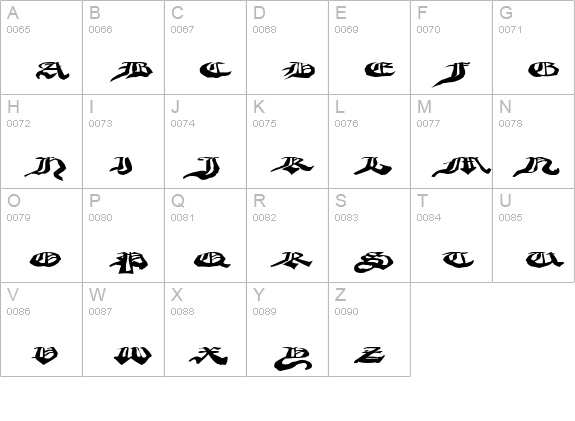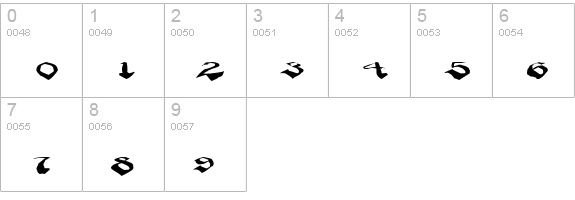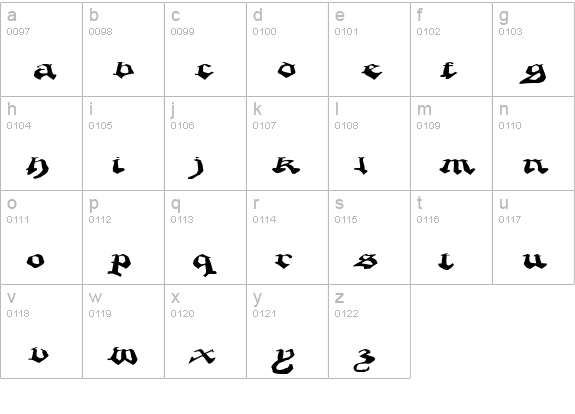
CrappyGothic font is a unique and edgy typeface that combines elements of gothic and grunge styles. With its jagged edges and distressed appearance, this font exudes a raw and rebellious vibe that is perfect for adding a touch of darkness to your designs. Despite its name, CrappyGothic font is anything but subpar - it offers a bold and striking look that is sure to make a statement. The best part? CrappyGothic font is available for free download at FontsMarket.com. Whether you're working on a poster, logo, or website design, this font will add an edgy flair to your projects without costing you a penny. Embrace the darker side of design with CrappyGothic font today!